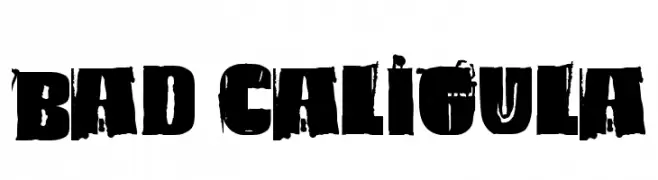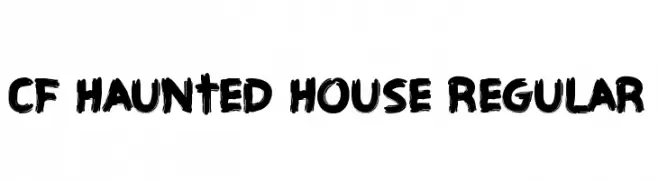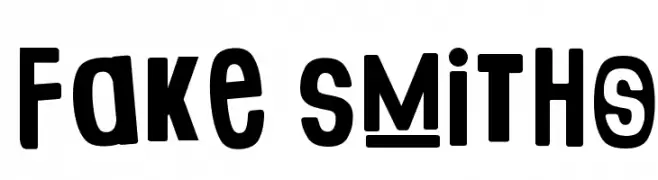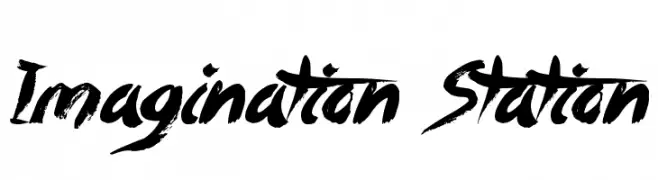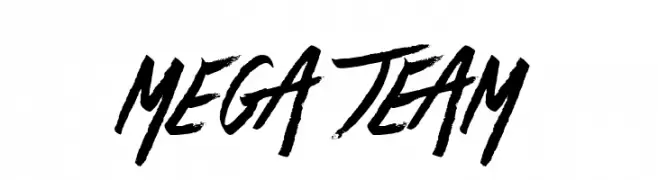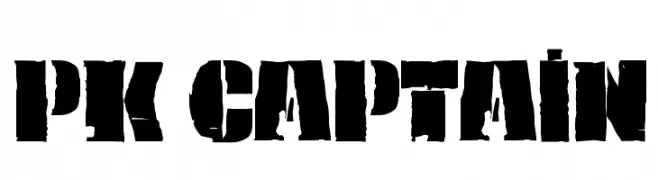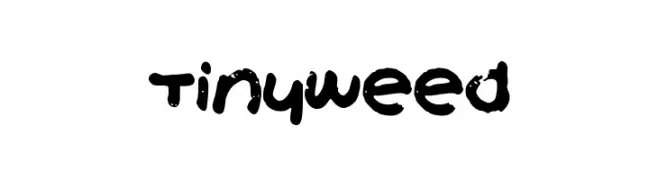
A bold, expressive brush-style font with dynamic, hand-painted strokes.
A playful, dripping paint-style font with irregular, artistic shapes.
A bold, playful font with a hand-drawn, quirky style.
A bold, brush-style font with dynamic, hand-painted strokes.
A bold, brush-stroke font with a hand-painted, dynamic appearance.
A bold, distressed stencil font with an industrial feel.
A bold, blocky font with a distressed, vintage-inspired design.
A bold, distressed font with rough, textured edges and a grungy appearance.